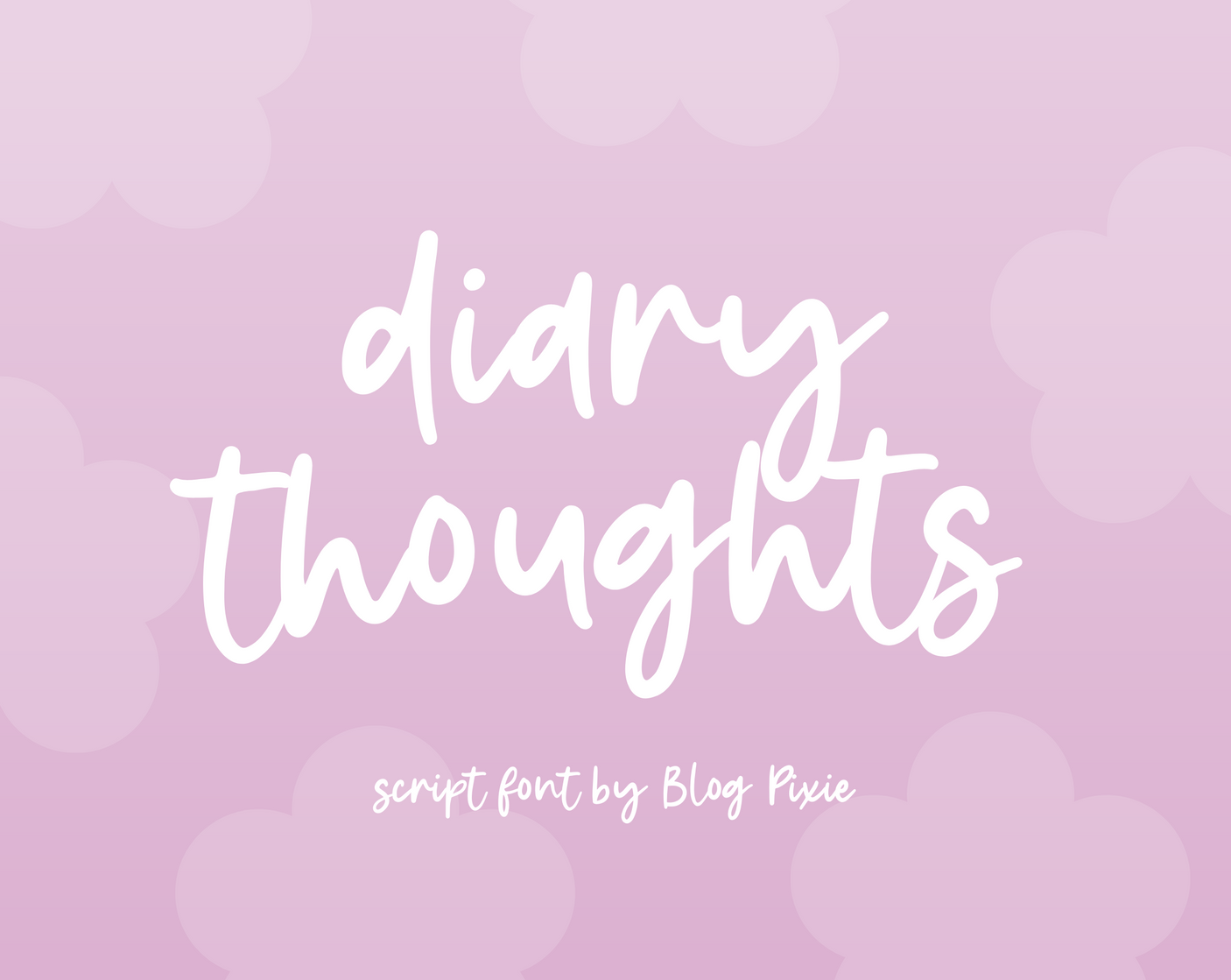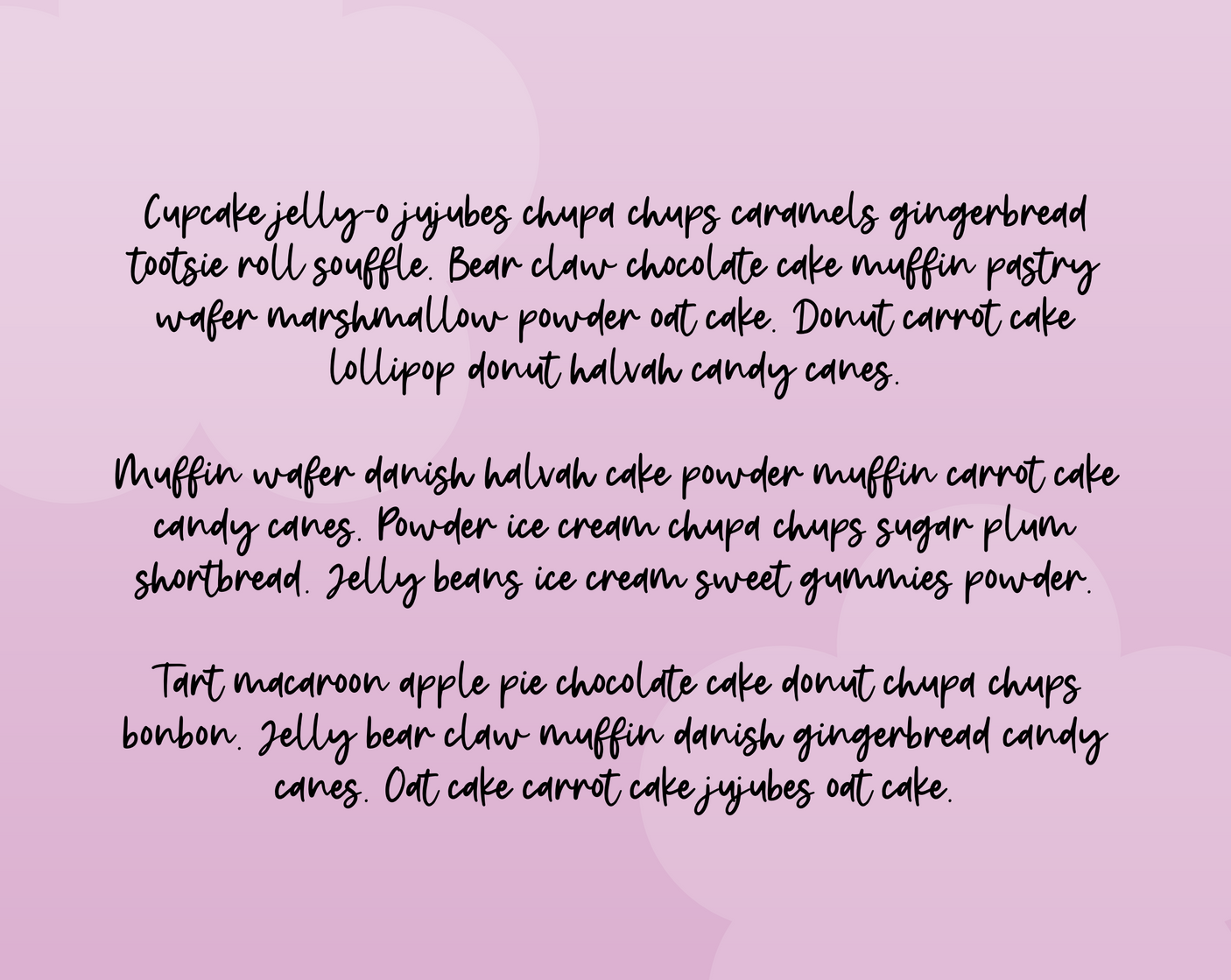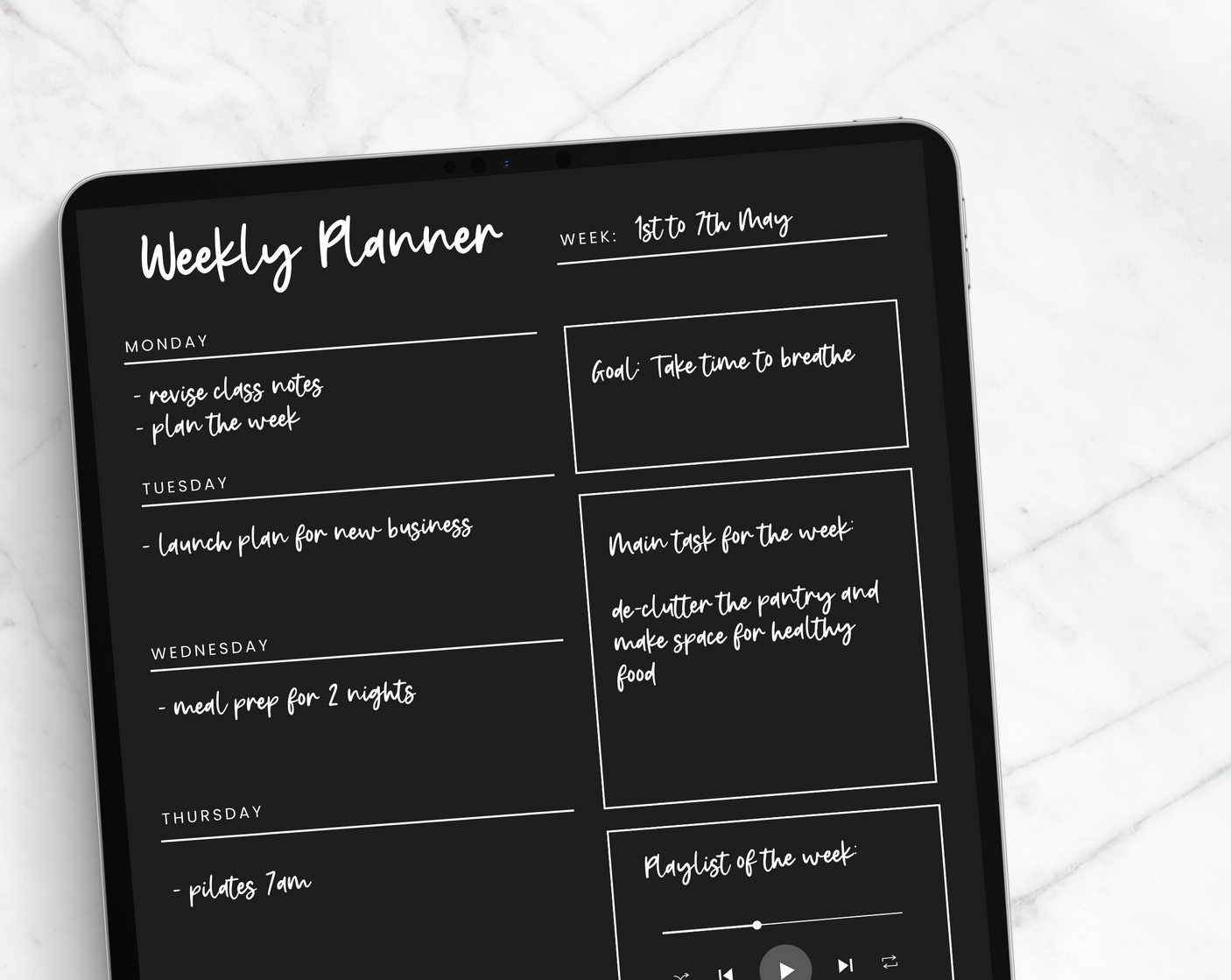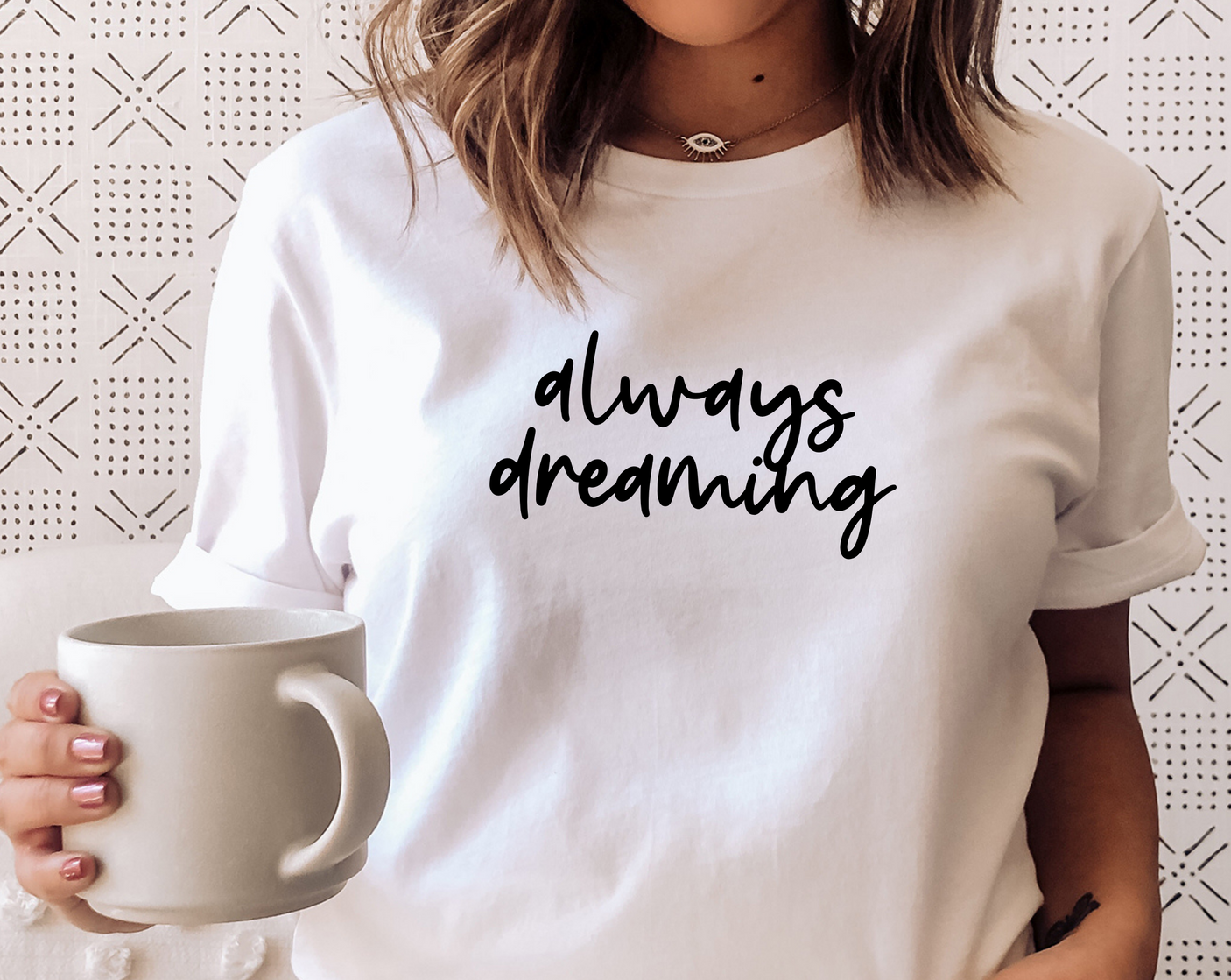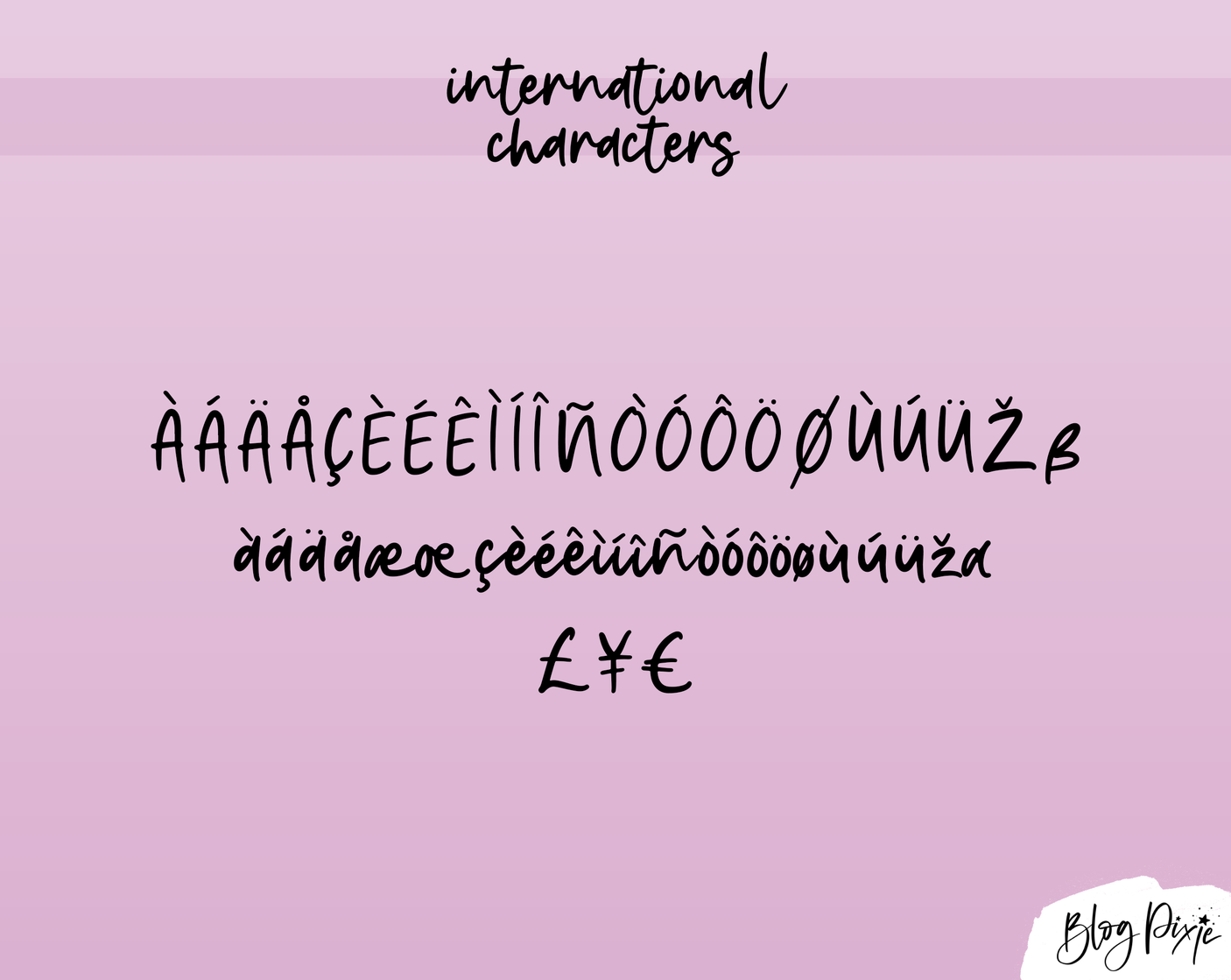
Diary Thoughts Font
Planner font in a handwriting style called Diary Thoughts. Use this handwritten script font for Cricut, Procreate, Goodnotes, iPad, Canva and more. It’s a messy but cute script font for digital planning, note-taking, logos, crafty work and digital projects.